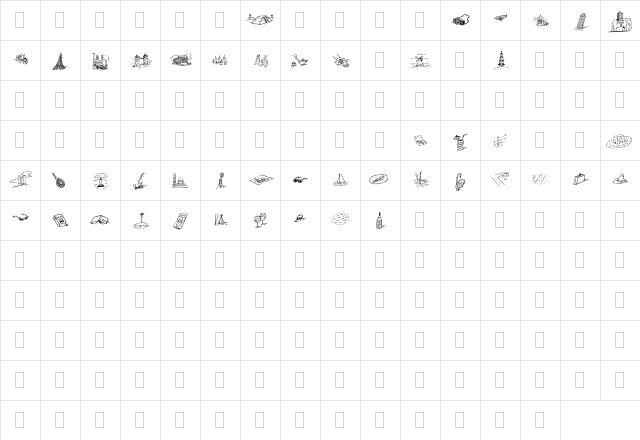
DF Journeys One Plain
Design Context for DF Journeys One Typeface
DF Journeys One is a composed and adaptable typeface that performs quietly and consistently across a wide range of design contexts.